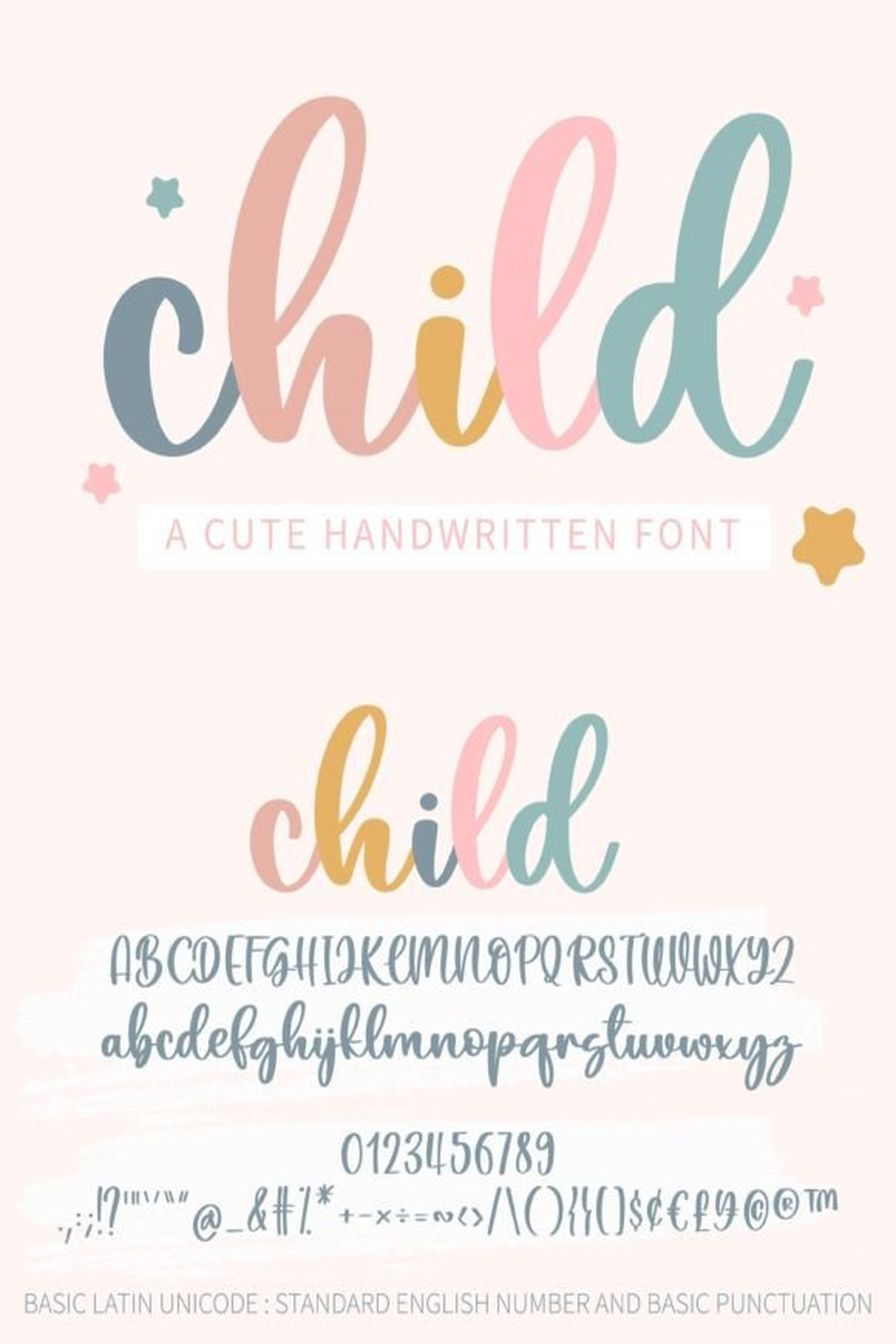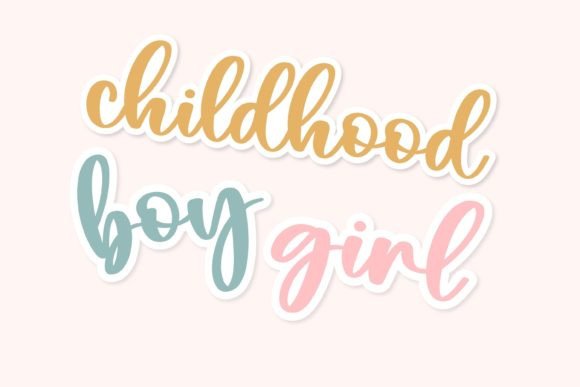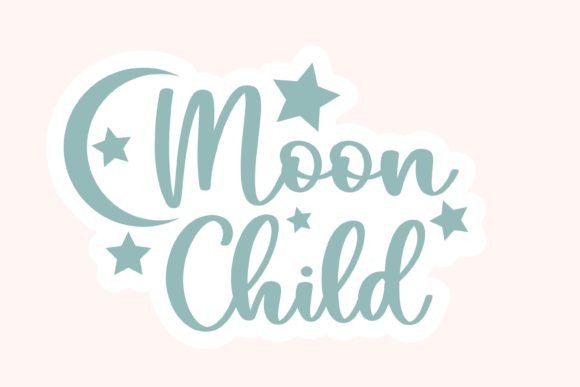
About the Child Font
Experience the unique personality of Child Font, a font designed for impact. Child is a sweet and cute handwritten font. Fall in love with its incredibly versatile style and use it to create gorgeous wedding invitations, beautiful stationary art, eye-catching social media posts, and much more!
Child Font Usage Examples